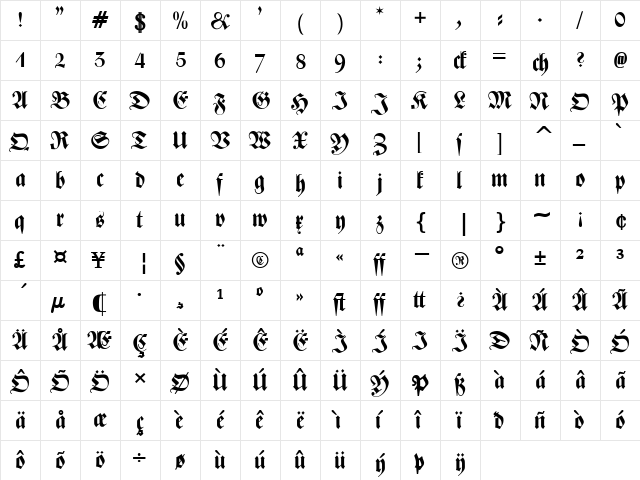
Zentenar Fraktur OsF Bold
Design Context for Zentenar Fraktur OsF Typeface
Zentenar Fraktur OsF draws on the rich tradition of blackletter calligraphy, with dense, angular strokes that evoke medieval manuscripts and old-world craftsmanship. The heavy weight commands attention and anchors typographic hierarchies.
A natural fit for music packaging, gothic editorial design, and any project that needs historical weight.
Font Pairing: Pair with a clean neutral sans-serif for body copy to let Zentenar Fraktur OsF's character lead without overwhelming the composition.
Pro Tip: Reserve Zentenar Fraktur OsF for display and logo use — pair it with a clean sans-serif for body copy to prevent the composition from feeling oppressive.